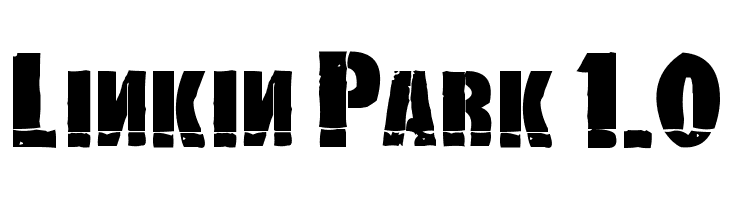
A bold, distressed font with a grunge texture for an edgy, impactful look.
A bold, distressed font with a gritty, urban aesthetic.
A bold, distressed font with a rugged, grunge aesthetic.
A bold, distressed italic font with jagged edges and a dynamic slant.
A bold, distressed, and condensed font with a grungy, graffiti-like style.
A bold, distressed, and condensed italic font with a grunge texture.
A bold, distressed font with a grunge aesthetic and jagged edges.
A bold, edgy font with jagged, distressed strokes and a rebellious vibe.
A bold, distressed font with a rugged, urban style and condensed width.
A bold, distressed italic font with a grunge aesthetic.
A bold, distressed stencil-style font with a rugged, urban aesthetic.
A bold, distressed font with a rugged, stencil-like appearance.
( Fonts by Harder Type Foundry )
A bold, distressed font with a grunge, urban style.